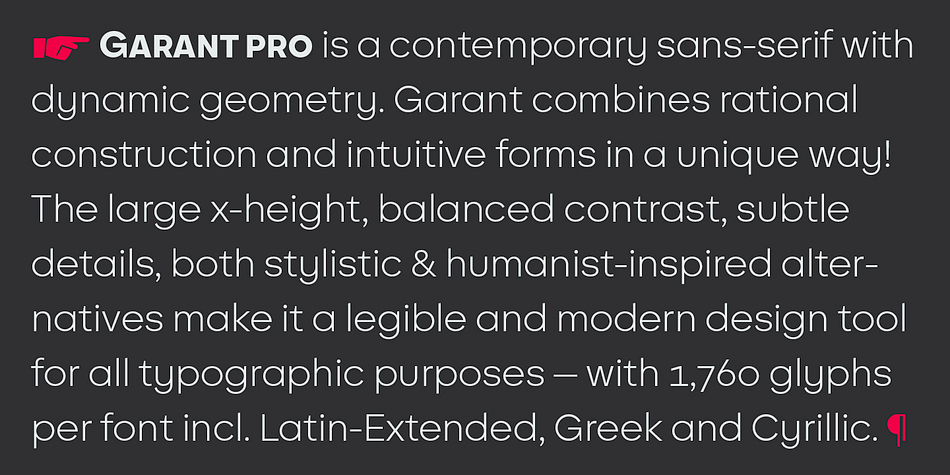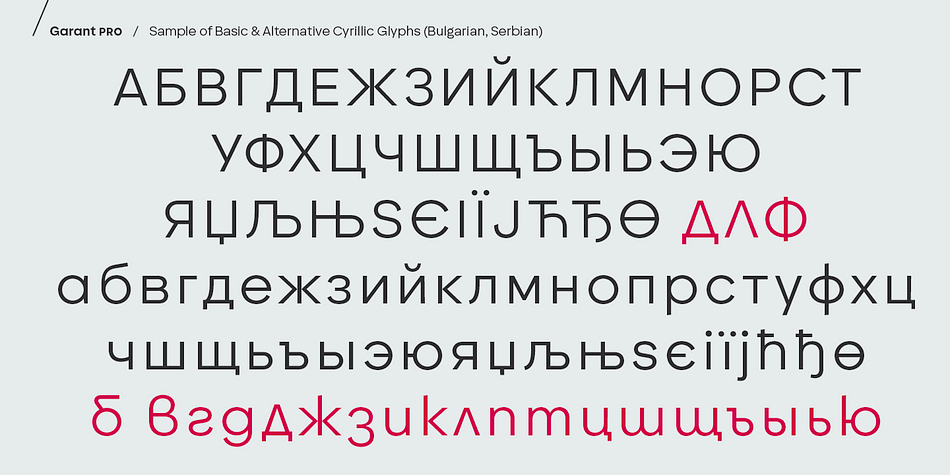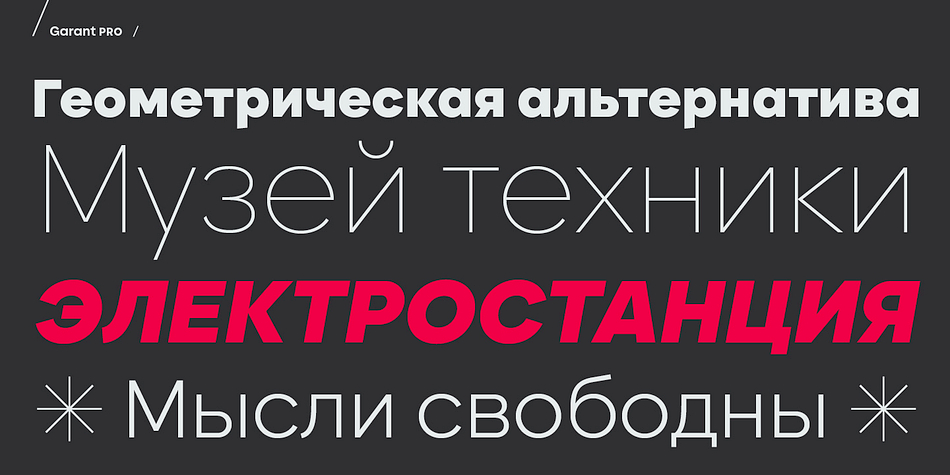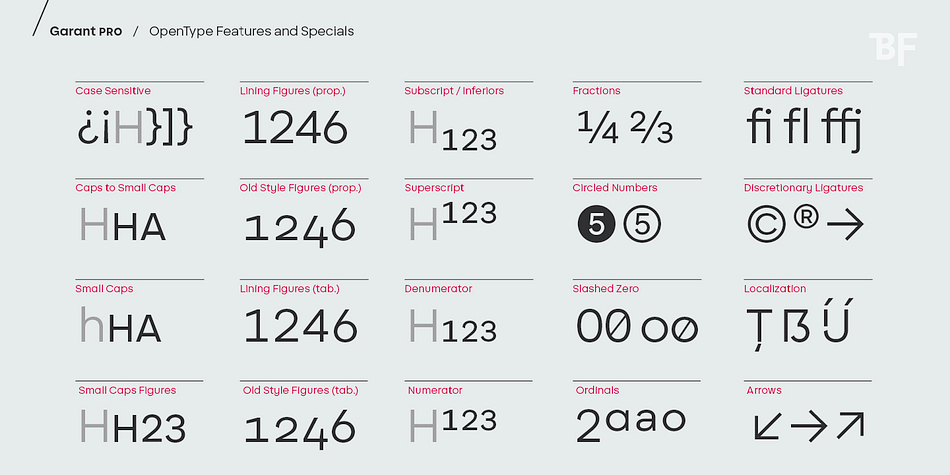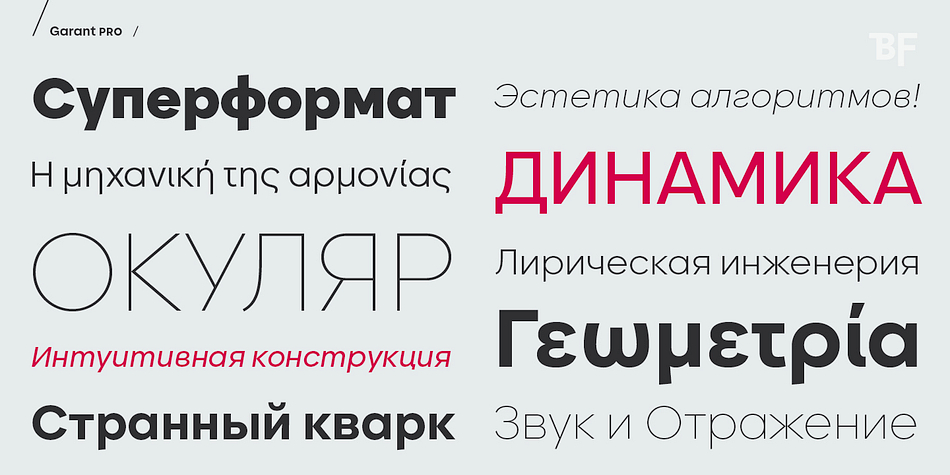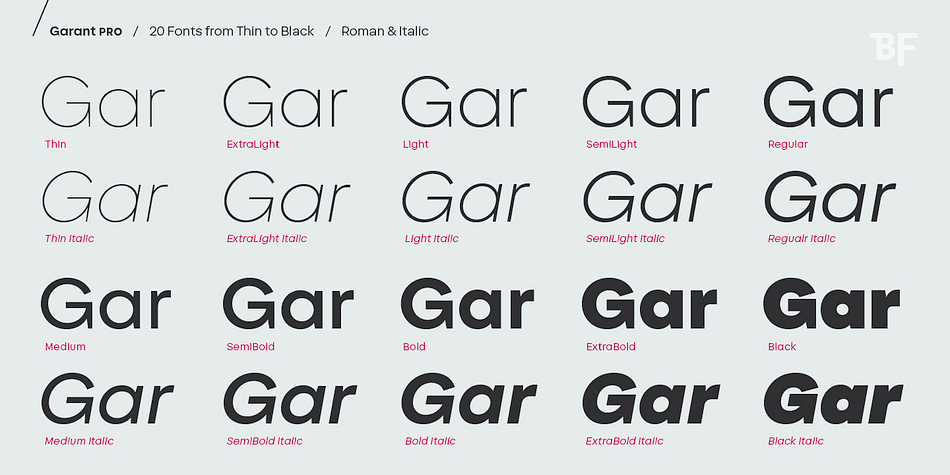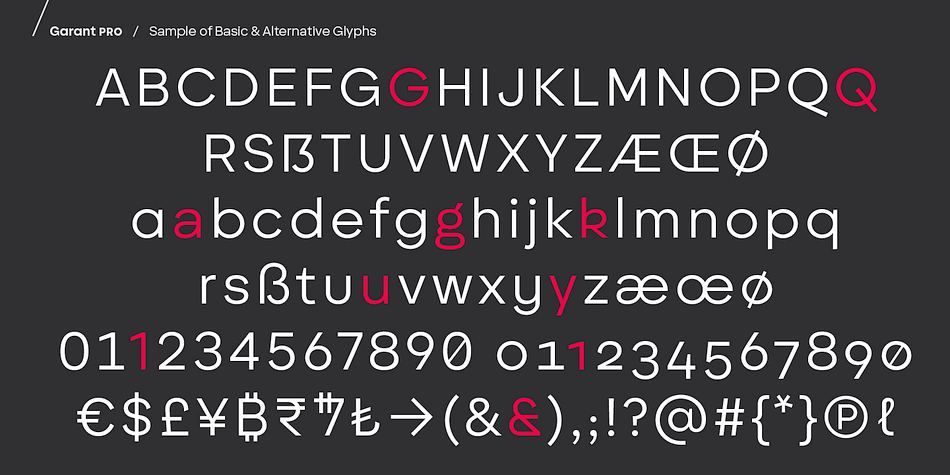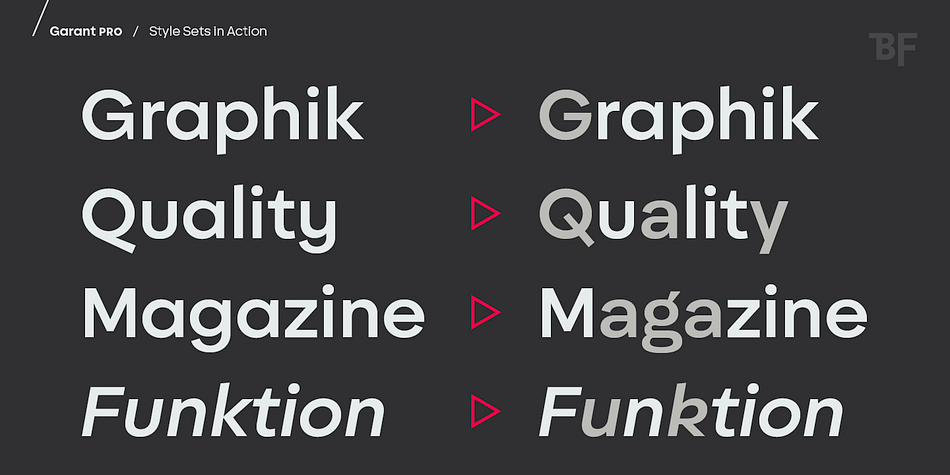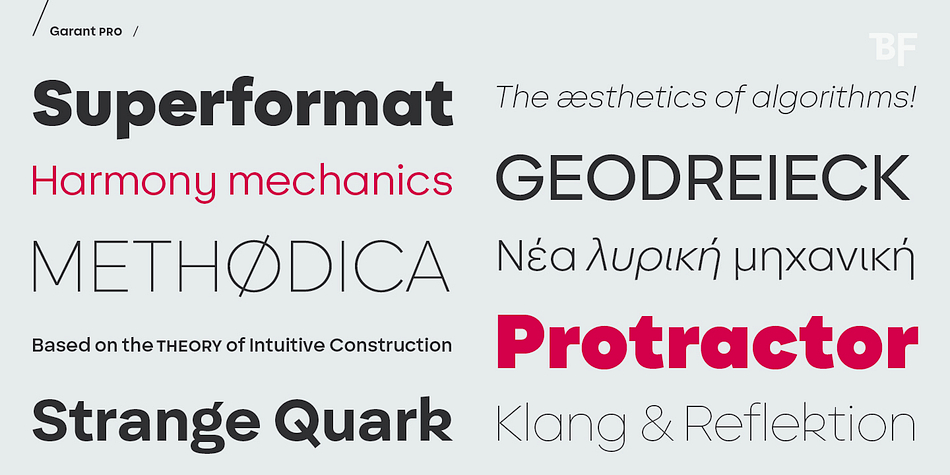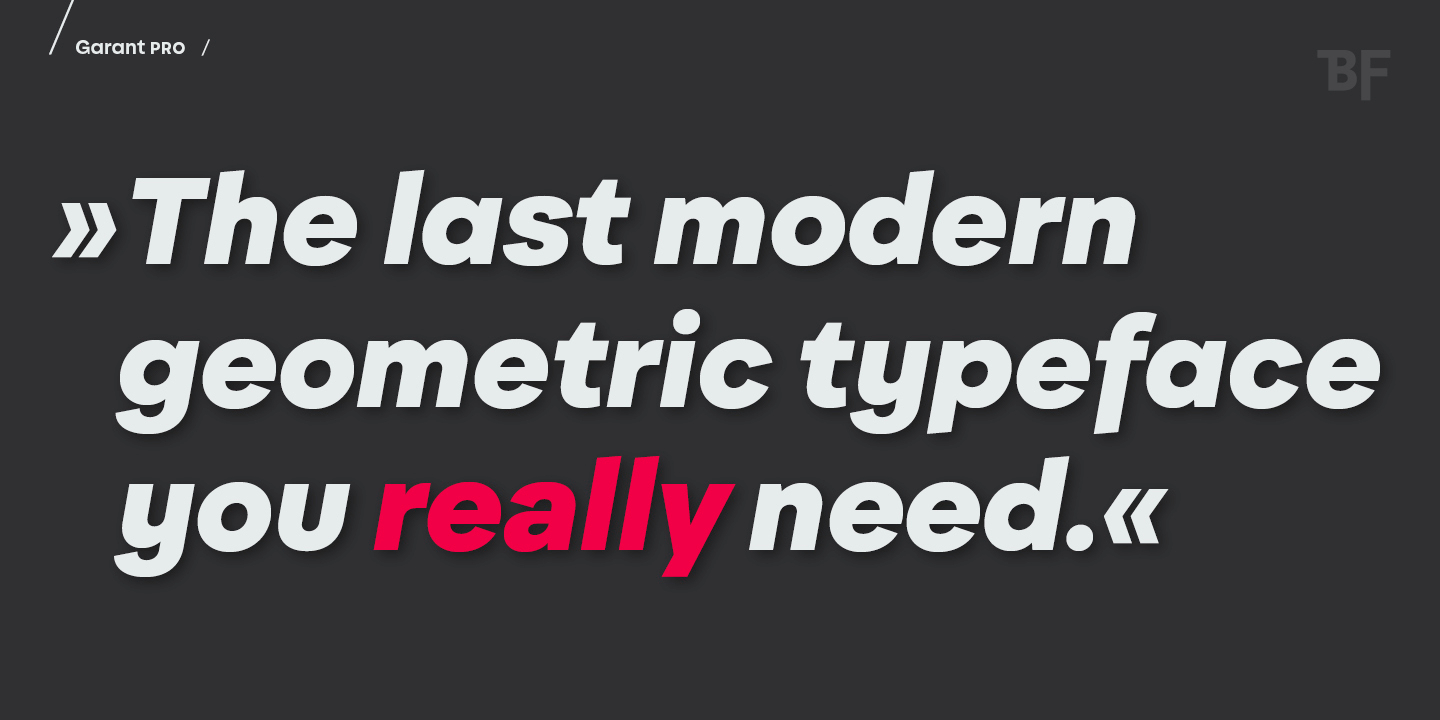
BF Garant Pro
Designed by Guido Schneider, BF Garant Pro is a sans serif font family. This typeface has twenty styles and was published by BrassFonts.
BF Garant™ Pro elegantly balances geometric design with dynamic character!
The strict architecture is combined with open counters, tapered spurs and diagonal cut ascenders and descenders that create an open, lively character without denying the straightness of geometry.
10 weights from Thin to Black and matching (oblique) Italics ensure versatile use of the type family. BF Garant Pro’s characters include the extended Latin Unicode range (incl. Vietnamese), Cyrillic and Greek. So it is very suitable for branding and packaging.
“The last modern geometric typeface you really need!”
The large x-height, dynamic details and some more conventional, humanist-inspired letter alternatives (a, g, k, u, y, G, Q - some of which are grouped together in the style set “Text”), make it not only a contemporary graphic element, but a highly legible timeless design tool, is not only ideal for logotypes or contemporary branding use, but also for modern editorial design.
The 1,760 characters per font include ligatures, alternates, line figures and old style figures, small caps, numerals for small caps, fractions, symbols (incl. Peace sign), currencies, different arrows etc. In addition, 23 useful OpenType features make BF Garant™ Pro a workhorse for many typographic applications. With the 11 style sets, BF Garant™ can be fully adapted to the user’s requirements without losing its unique character.
And for those who ever wanted to open a bar on Tatooine, BF Garant™ Pro also includes the currency sign of Galactic Credits! Feel the Font!
Designer Guido Schneider